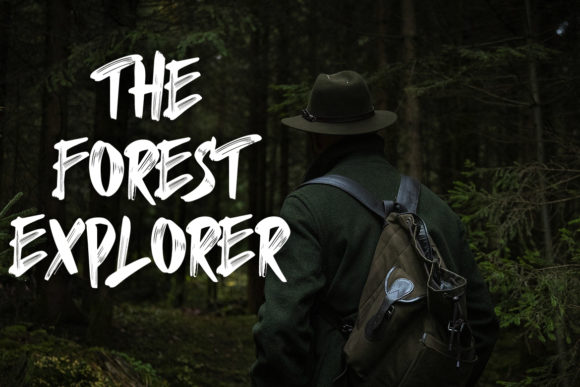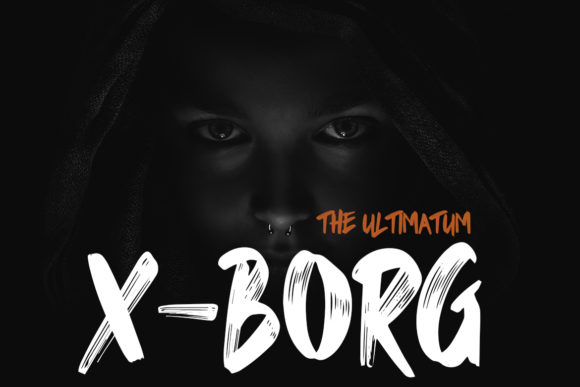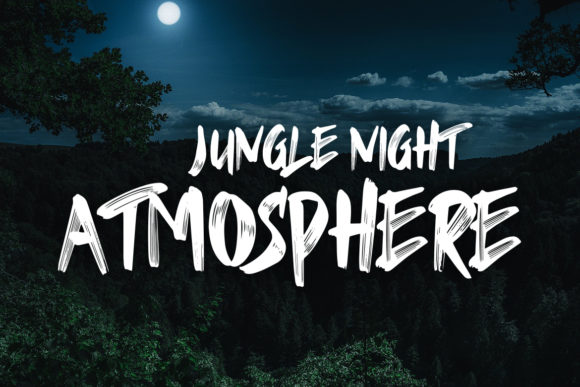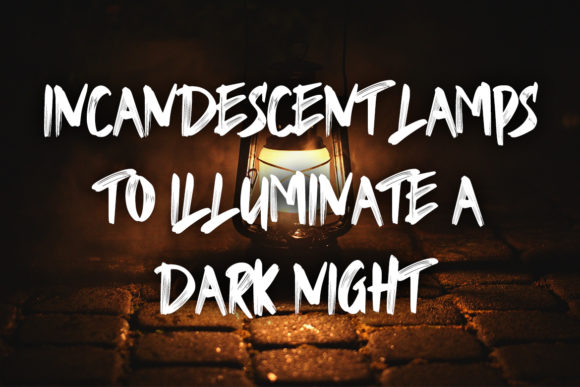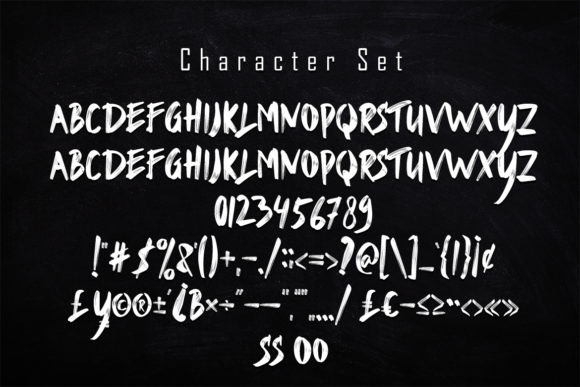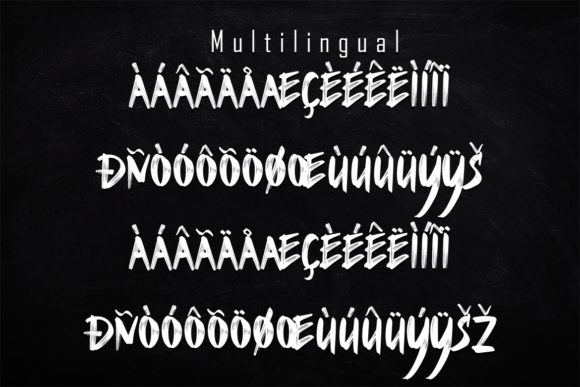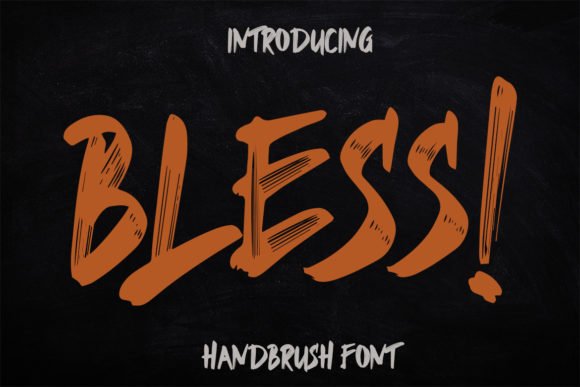
Discover Your Next Design Crush: Bless Font
There’s nothing quite like the thrill of finding that perfect font to elevate your design. Remember the moment when a font’s unique charm captured your heart, and you knew you had to work with it? For designers, that ‘aha’ moment is a game-changer. It’s the spark that sets off a creative firestorm, driving us to push the boundaries of what’s possible. For me, that moment came when I stumbled upon the Bless Font.
Bless Font is a brush display font that embodies the perfect blend of clean and quirky. Designed to be versatile, this font is perfect for crafting logos, branding, social media, and DIY projects that demand a touch of personality. Whether you’re a seasoned pro or a budding designer, Bless Font is an invaluable addition to your toolkit, offering endless possibilities for creative expression.
What sets Bless Font apart is its unique ability to bring a human touch to digital design. With its expressive brushstrokes and subtle nuances, this font is sure to captivate your audience and leave a lasting impression.
- Unique Characteristics: Bless Font features a distinctive, elegant design with intricate details and subtle nuances, making it an excellent choice for creative projects and branding.
- Weight and Style Options: Bless Font is available in multiple weights, from Light to Bold, and various styles, including Regular, Italic, and Bold Italic, providing flexibility for designers and typographers.
Bless Font Review
At first glance, the Bless Font appears to be a beautifully crafted typeface, suitable for various design applications. ✨ One of its standout features is its elegant, sophisticated look, which would pair well with luxury brands or high-end designs. The font’s intricate details and subtle nuances make it a great choice for headings or titles where you want to create a sense of refinement.
Additionally, the Bless Font supports a wide range of languages, including Latin, Cyrillic, and Greek, making it a versatile option for multilingual designs. ✨ Its various weights and styles also offer flexibility in terms of customization, allowing designers to achieve the desired aesthetic.
- ⚠️ The font may not be ideal for body text due to its complexity and high contrast, which can lead to readability issues.
Overall, the Bless Font is a stylish and sophisticated typeface that can elevate high-end designs. However, its limitations may make it less suitable for more straightforward or informal projects.
Getting the Most Out of Bless Font
For optimal results, pair Bless Font with high-quality images and graphics. Experiment with different font sizes, colors, and styles to create visually appealing designs.
Bless Font is ideal for:
• Wedding invitations and stationery
• Luxury branding and packaging
• High-end marketing materials and presentations
• Fashion and beauty branding